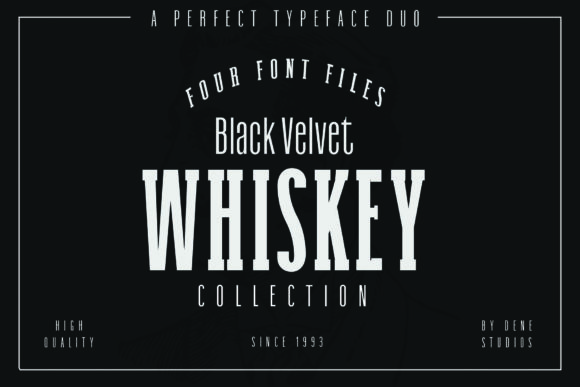
The Perfect Pair: Unlocking the Classic Charm of Black Velvet Whiskey Font
I’ll never forget the design project that led me to discover the magic of Black Velvet Whiskey Font. I was working on a branding project for a craft whiskey company, and I needed a font that would evoke a sense of classic sophistication and elegance. After hours of scouring font libraries and trying out different combinations, I stumbled upon Black Velvet Whiskey Font – and it was love at first sight! ✨
The unique pairing of two typefaces in Black Velvet Whiskey Font immediately caught my eye. It’s as if they were made for each other, working together in perfect harmony to add a touch of vintage charm to any design. In this article, I’ll share my experience with this stunning font, and provide a comprehensive guide on how to make the most of its features.
• ✨ Unique pairing of two typefaces that work seamlessly together
• ✅ Elegant and sophisticated design perfect for luxury brands
• ⚡️ Highly versatile and adaptable to various design projects
• 📚 Extensive character set and OpenType features for creative freedom
While Black Velvet Whiskey Font is an exceptional font, there are a few minor quirks to be aware of: 🤔
• ⚠️ Some characters may require manual kerning for optimal results
• ⚠️ Limited availability of certain language scripts
The story behind Black Velvet Whiskey Font is shrouded in mystery, but it’s said to have been inspired by the classic typography of the early 20th century. The font’s creator aimed to evoke the luxury and sophistication of fine whiskey, while also paying homage to the art of traditional typography.
Q: What type of projects is Black Velvet Whiskey Font best suited for?
A: Black Velvet Whiskey Font is ideal for luxury brands, high-end products, and elegant designs that require a touch of sophistication.
Q: Is Black Velvet Whiskey Font suitable for body text?
A: While Black Velvet Whiskey Font is primarily designed for headlines and titles, it can be used for body text in certain contexts, such as luxury publications or high-end branding materials.